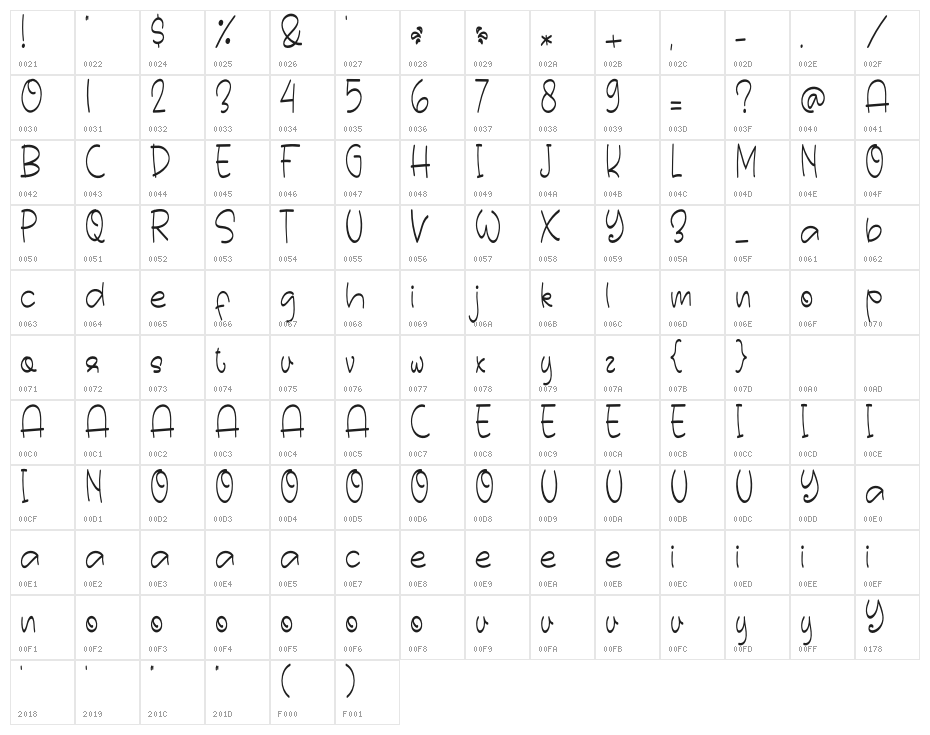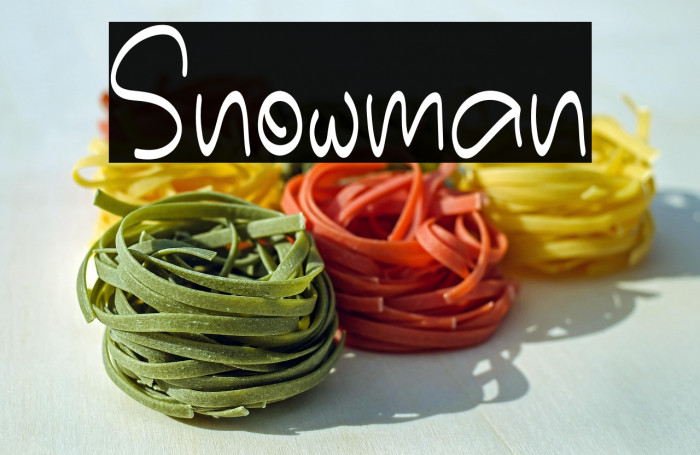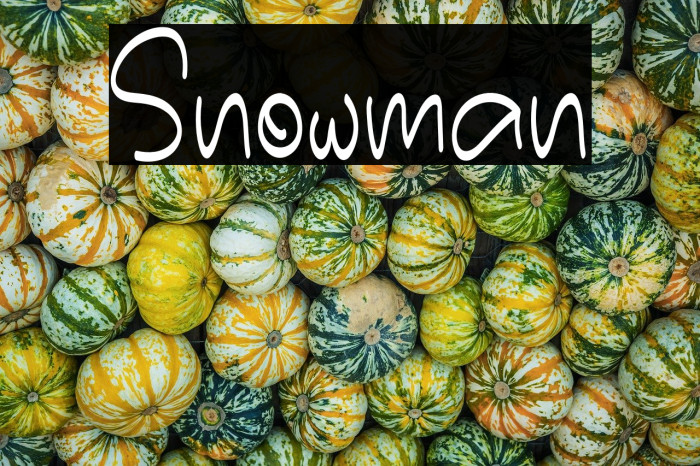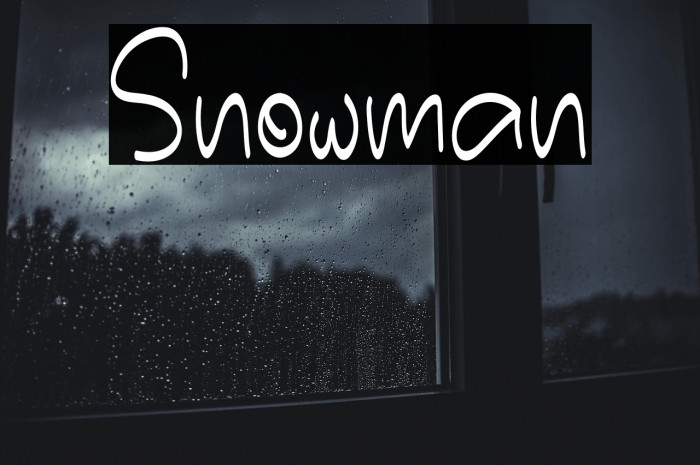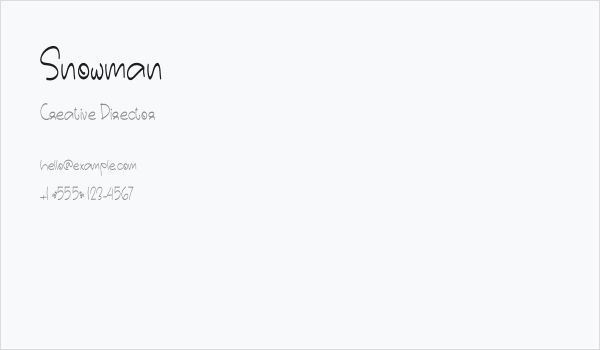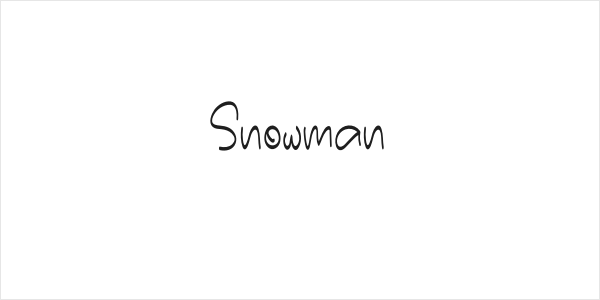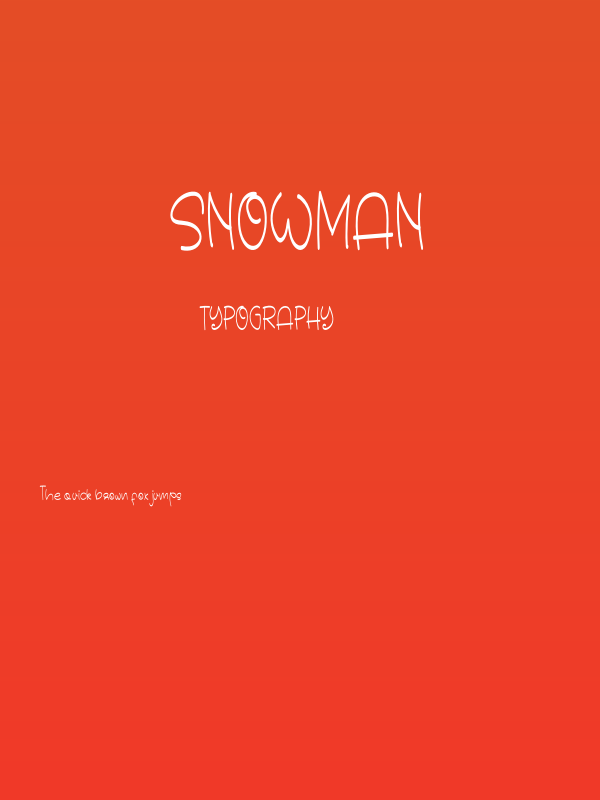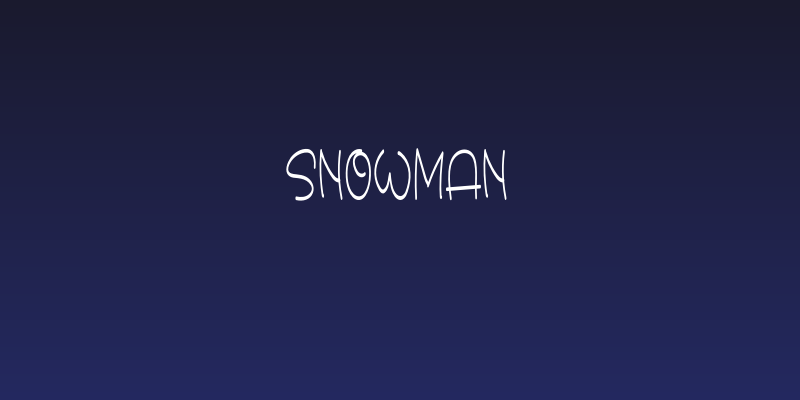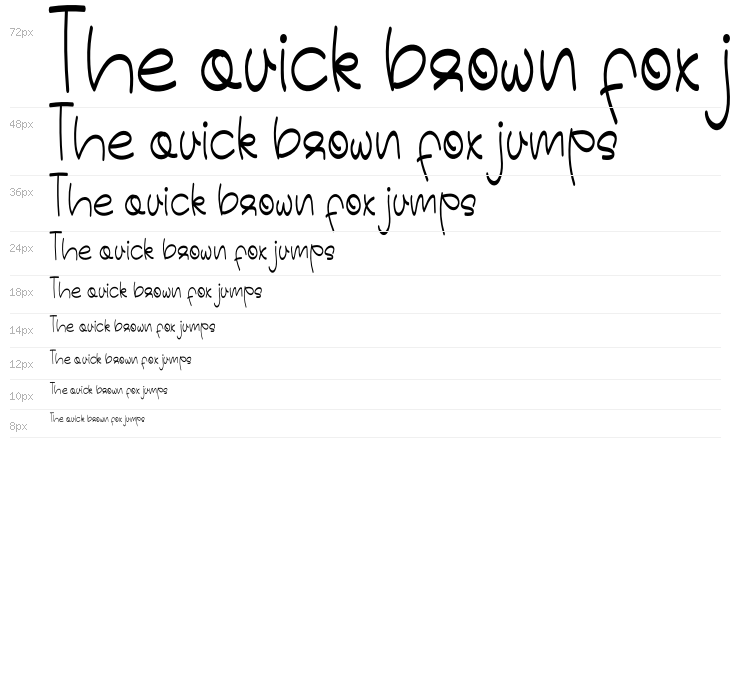
Snowman Font
Snowman Description
This playful and whimsical font features a handwritten style with a casual and friendly appearance. The letters are slightly irregular, adding a personal touch that mimics natural handwriting. The strokes are smooth and rounded, with a consistent flow that enhances readability. The uppercase and lowercase letters maintain a cohesive look, while the numerals and special characters complement the overall design. This font exudes a sense of fun and creativity, making it ideal for projects that require a lighthearted and approachable feel.
| Overall Style | Whimsical |
| Proposed Projects | Ideal for children's books, greeting cards, playful branding, and casual invitations. |